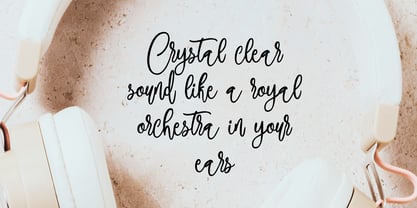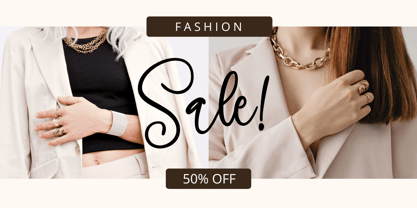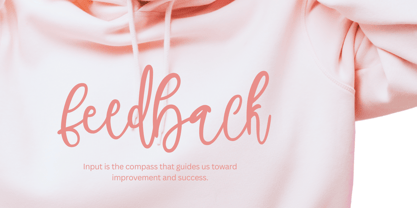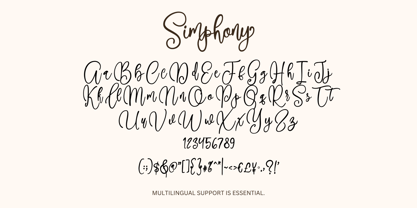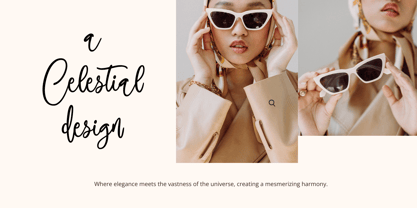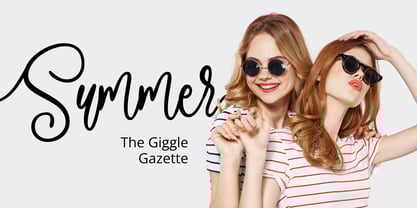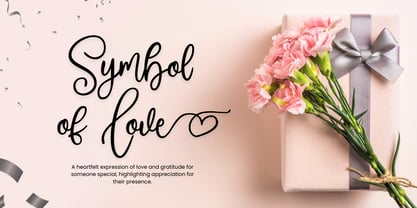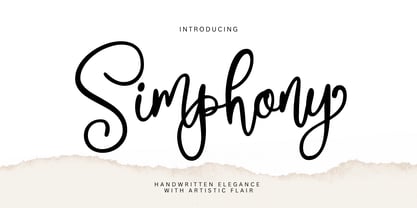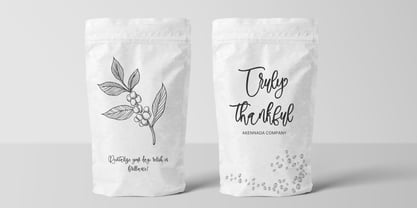
Simphony
by Gatype
The Simphony Font Family was designed by khaidir and published by Gatype. Simphony contains 2 styles and family package options. More about this family
Simphony is a modern handwritten font with a touch of classic charm. Perfect for invitations, logos, quotes, packaging, and any creative project that needs a graceful and personal feel.
✨ Handwritten elegance with artistic style
💡 As beautiful as a symphony, as clear as expression
Features:
✔ Uppercase & lowercase letters
✔ Lovely ligatures
✔ Numbers & punctuation
✔ Multilingual support
✔ Available in Regular & Bold styles